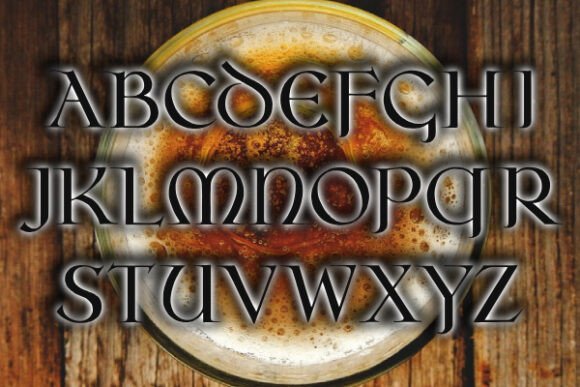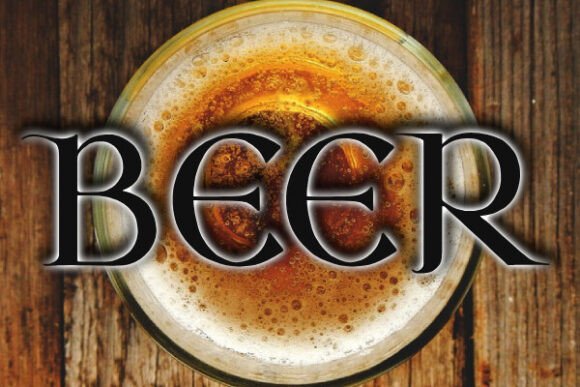
Oseberg Font
Oseberg is a stylish, gothic-inspired font that embodies the essence of historical and medieval aesthetics. This font draws its influence from ancient Nordic and Viking-era inscriptions, giving it a bold and distinguished appearance. Ideal for businesses or products related to history, mythology, or fantasy, such as escape rooms, themed restaurants, or artisan products.